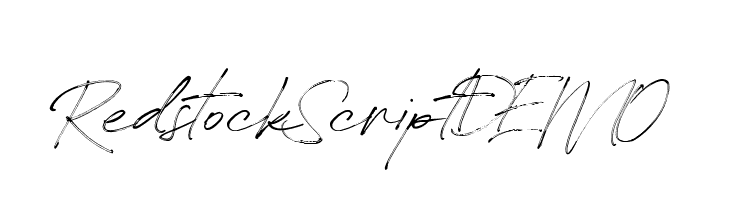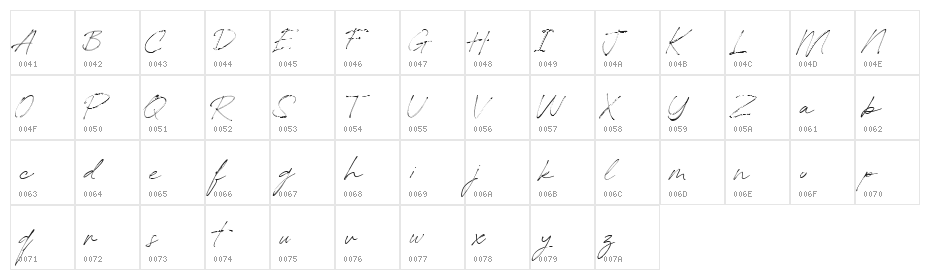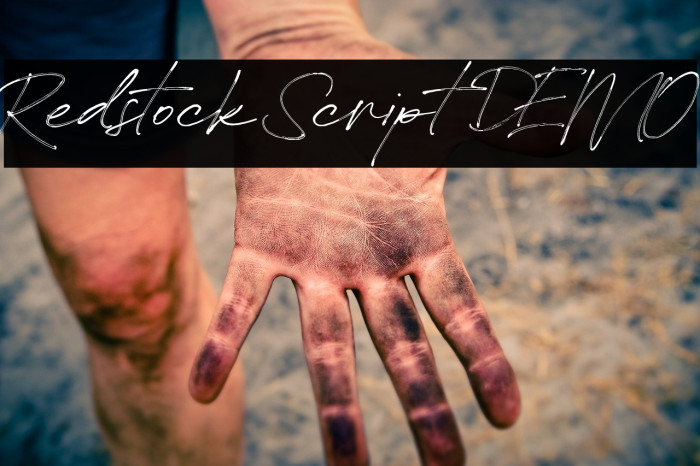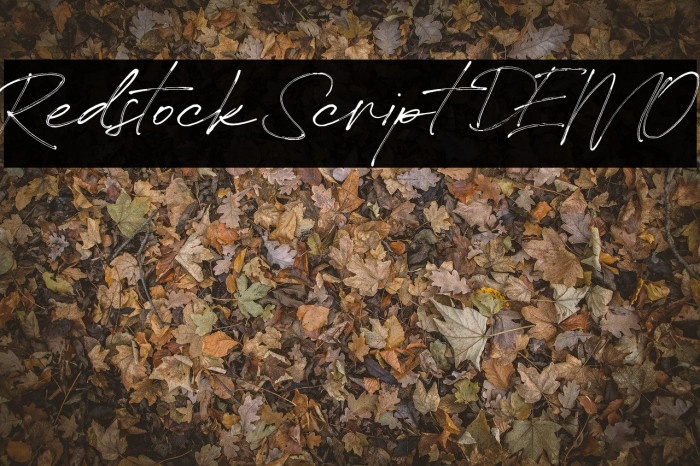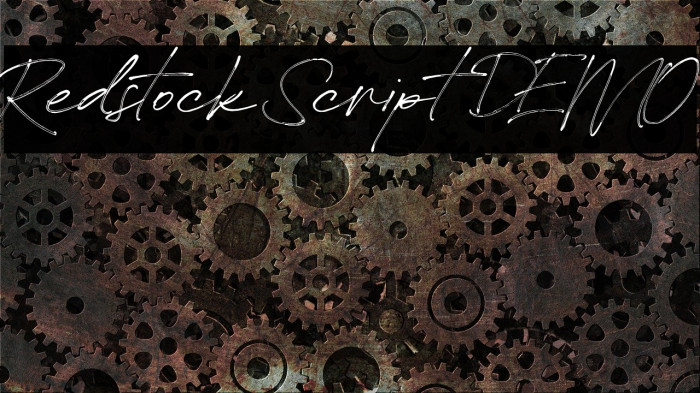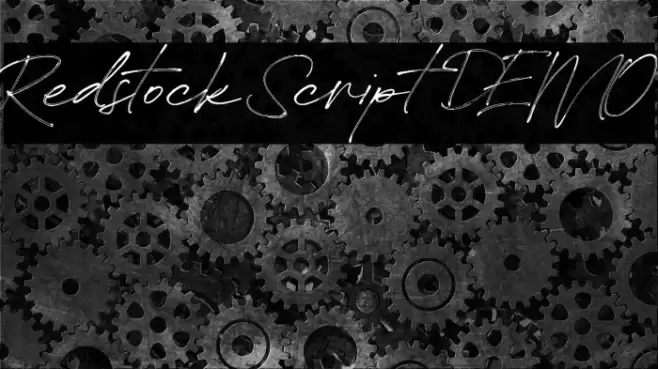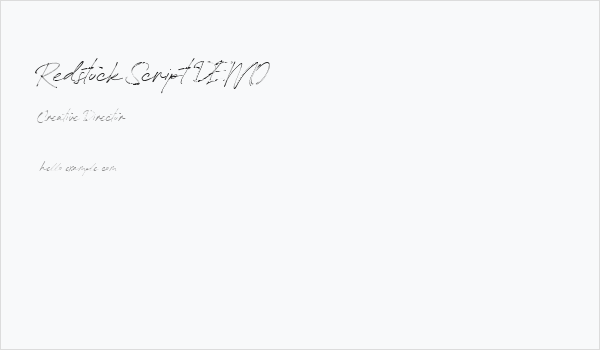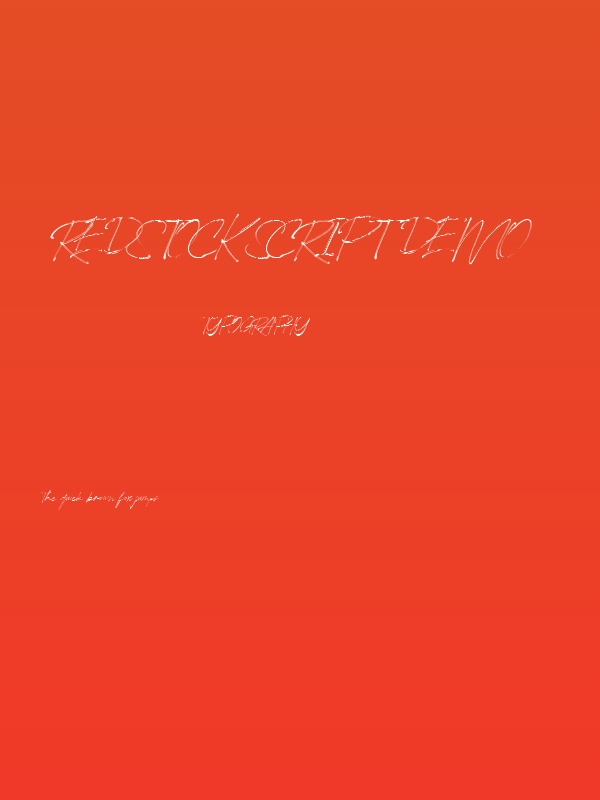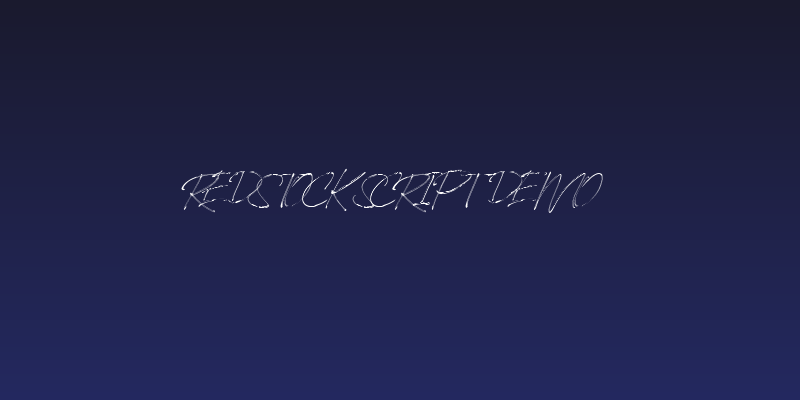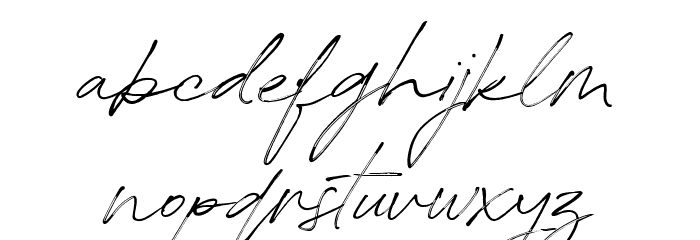
Redstock Script DEMO Font
Redstock Script DEMO Description
This font features a flowing, cursive style that mimics natural handwriting with a touch of elegance and sophistication. The characters are connected, creating a seamless and fluid appearance. The strokes are varied, with some letters having thicker downstrokes and thinner upstrokes, adding a dynamic and lively feel. The overall look is both casual and refined, making it suitable for a variety of creative projects. The uppercase letters are slightly more elaborate, while the lowercase letters maintain a consistent, smooth flow. This font is perfect for adding a personal touch to designs, conveying warmth and creativity.
| Use Case | Logos, Invitations, Artistic designs |
| Proposed Projects | Ideal for wedding invitations, greeting cards, personal branding, and artistic projects. |